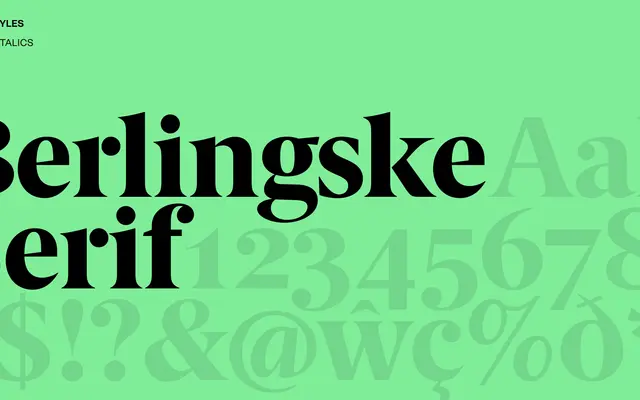
Berlingske Serif specimen from Playtype
A serif typeface developed for the Danish newspaper Berlingske, designed for editorial and long-form reading contexts.
Designed in connection with the historic Danish newspaper Berlingske, this serif sits in the tradition of editorial typefaces built for sustained reading. The name and context point to a typeface shaped by the demands of newspaper typography, where legibility and rhythm at text sizes take priority. Suited to editorial, publishing and identity work that calls for a grounded, authoritative serif.
Named after the Danish newspaper Berlingske, the typeface's editorial context and the serif classification implied by its name suggest a transitional or text-optimised serif suited to long-form reading.